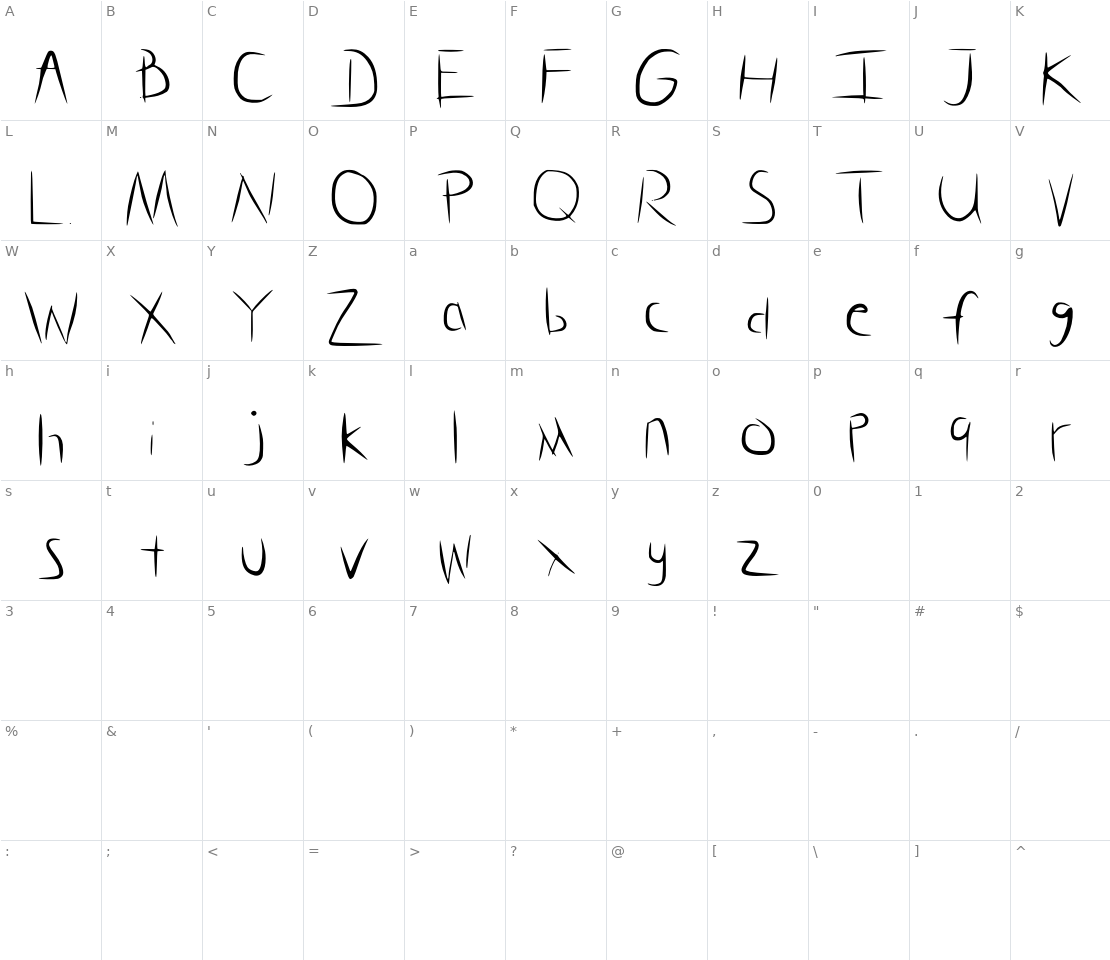
Glass Hand
by Aaron Glass
Glass Hand is a thin, scratchy handwritten face by Aaron Glass with an uneven, off-the-cuff quality that feels like someone jotting notes with a nearly dry pen. The lightweight strokes and irregular letterforms give it a quirky, personal character that stays legible without looking fussed over. A good pick for informal branding, packaging notes, or anywhere you want type that reads as genuinely human and a little rough around the edges.